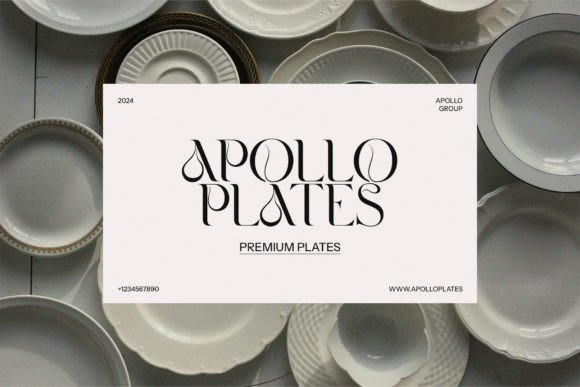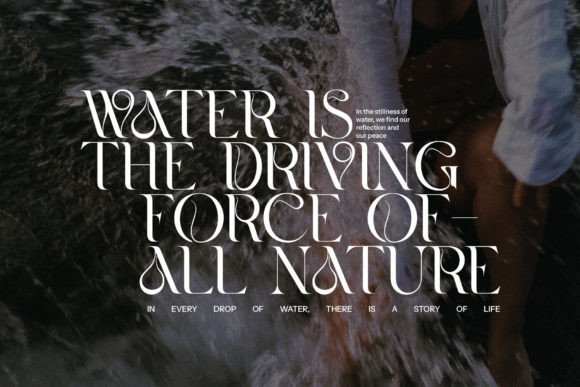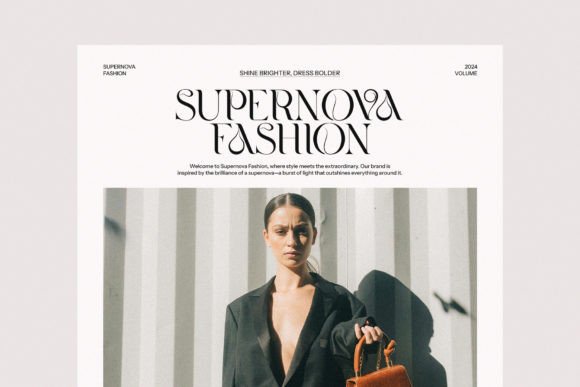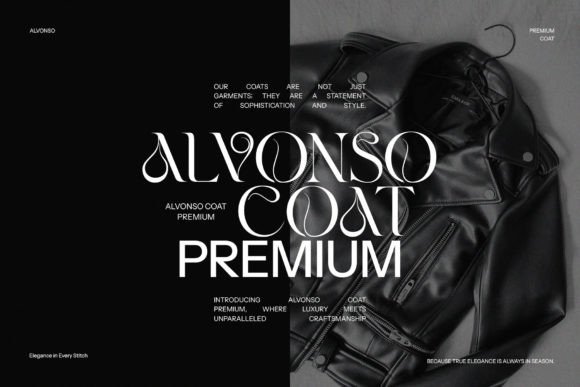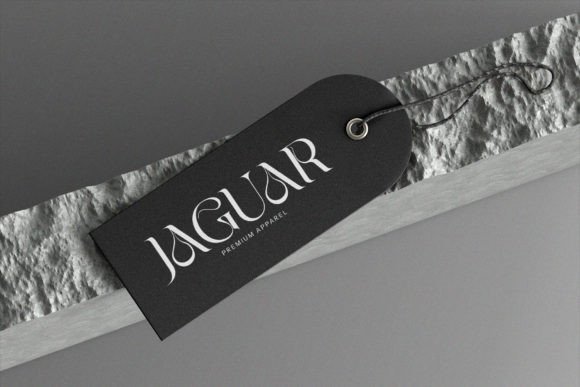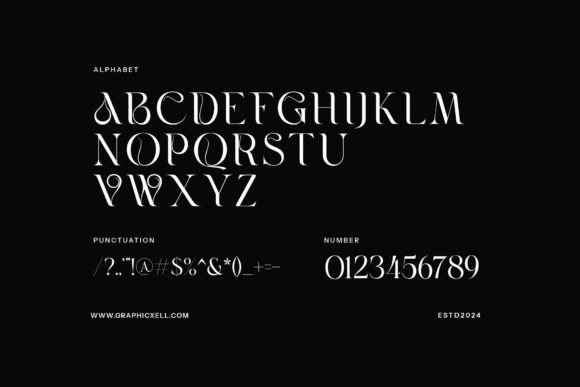
Discover the Elegance of Bagons Font: A Modern Serif Typeface
In the world of typography, a good font can make all the difference in creating a stunning design. If you’re a designer or crafter looking for a typeface that exudes sophistication and charm, look no further than Bagons Font. This modern serif typeface is designed to add a fashionable touch to any design project, making it perfect for a wide range of applications.
The Characteristics of Bagons Typeface
So, what makes Bagons Typeface so special? For starters, its delicate curves bring an elegant style to any design. The classy ligature is also a notable feature, adding a touch of refinement and sophistication. With calligraphic influences, this font gives off a contemporary feeling that’s hard to achieve with other typefaces.
Whether you’re working on a beauty design, elegant crafting, layout design, ad branding, or design template, Bagons Typeface is the perfect choice. Its versatility and flexibility make it suitable for a wide range of projects, from print materials to digital designs. The font’s smooth strokes and varying line thickness create a sophisticated look that’s sure to impress.
Elevate Your Graphic Design Project
If you’re looking to take your graphic design project to the next level, Bagons Typeface is here to help. With its modern and beautiful design, this font is sure to add a touch of elegance to any project. The Bagons Typeface creates a stunning visual effect that will leave a lasting impression on your audience.
Why You’ll Fall in Love with Bagons Font
There are many reasons why designers and crafters will fall in love with Bagons Font. For one, its unique blend of modernity and elegance makes it a standout typeface. The font’s calligraphic influences add a touch of whimsy and creativity, making it perfect for designers who want to add a personal touch to their work. Additionally, the font’s smooth strokes and delicate curves make it a joy to work with.
Tips for Using Bagons Typeface
To get the most out of Bagons Typeface, here are a few tips to keep in mind:
- Use it for headlines and titles to add a touch of elegance and sophistication.
- Pair it with other fonts to create a unique and visually appealing design.
- Experiment with different line sizes and styles to create a customized look.
- Use it for branding and advertising materials to create a lasting impression.
In conclusion, Bagons Font is a modern serif typeface that offers a fashionable touch to any design project. With its delicate curves, classy ligature, and calligraphic influences, this font is perfect for designers and crafters looking to add a touch of elegance and sophistication to their work. Whether you’re working on a beauty design, elegant crafting, or graphic design project, Bagons Typeface is sure to impress.
Get Ready to Elevate Your Design
So, what are you waiting for? Get ready to elevate your design with Bagons Font. With its versatility, flexibility, and stunning visual effect, this font is sure to become a staple in your design toolkit. Try it out today and see the difference it can make in your design projects!